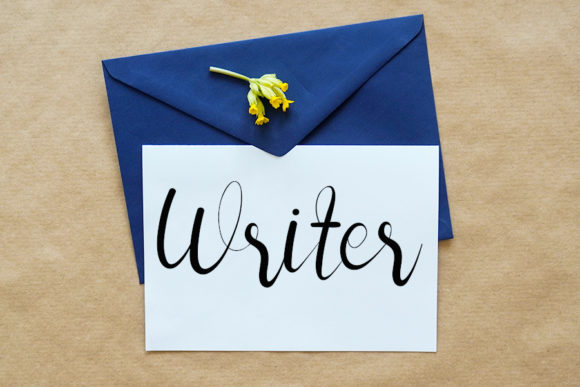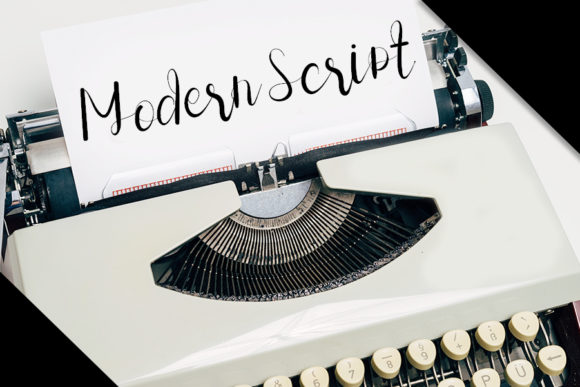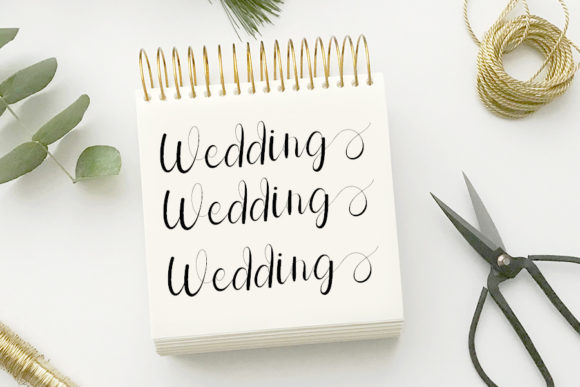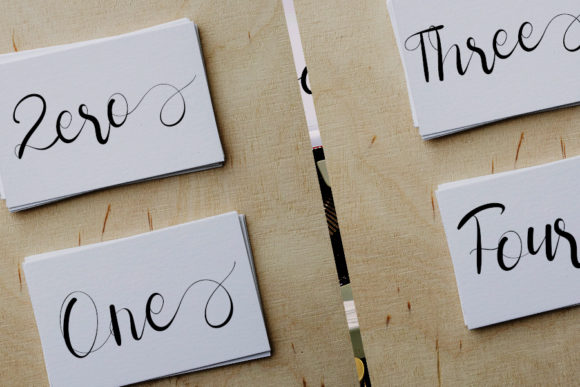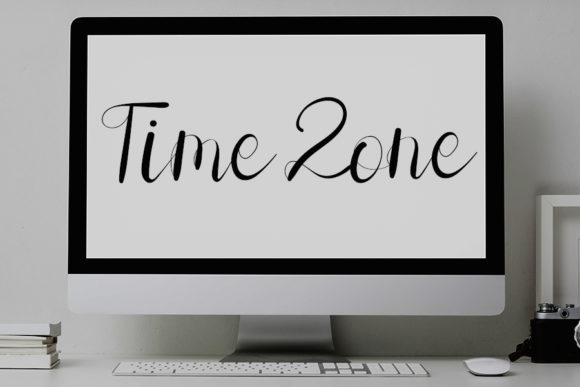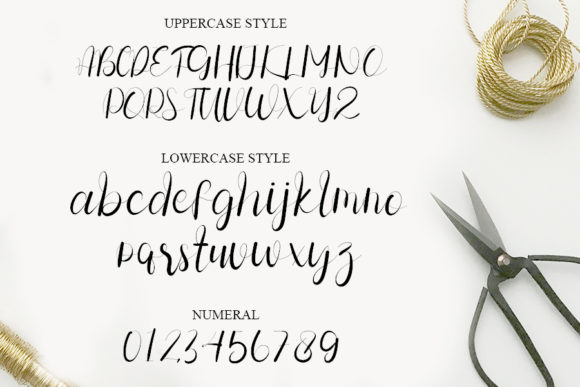
Ghiolla Font: The Sweet and Delicate Script Font for Your Creative Projects
Are you a designer or crafter looking for a font that can add a touch of elegance and trendiness to your creative projects? Look no further than the Ghiolla font. This sweet and delicate script font is perfect for a variety of applications, from branding and product packaging to invitations, quotes, t-shirts, labels, posters, and logos.
What is Ghiolla Font?
Ghiolla is a beautifully designed script font that features elegant and trendy characters. Its delicate strokes and curves make it a versatile font that can be used for a wide range of creative projects. Whether you’re looking to create a sophisticated brand identity or a playful design, Ghiolla font is sure to impress.
Key Features of Ghiolla Font
- Elegant and Trendy Characters: Ghiolla font features beautifully designed characters that are both elegant and trendy. Its unique style makes it perfect for designers and crafters who want to create unique and eye-catching designs.
- Suitable for Various Applications: Ghiolla font is versatile and can be used for a variety of applications, including branding, product packaging, invitations, quotes, t-shirts, labels, posters, and logos.
- Easy to Read: Despite its delicate nature, Ghiolla font is easy to read, making it perfect for designs that require a lot of text.
- High-Quality Design: Ghiolla font is designed with high-quality graphics, ensuring that it looks great in any design.
Uses of Ghiolla Font
Ghiolla font is a versatile font that can be used for a wide range of creative projects. Here are some of the most popular uses of Ghiolla font:
- Branding: Ghiolla font is perfect for creating a sophisticated brand identity. Its elegant and trendy characters make it ideal for logos, business cards, and other branding materials.
- Product Packaging: Ghiolla font can be used to create eye-catching product packaging that stands out on store shelves.
- Invitations: Ghiolla font is perfect for creating beautiful and elegant invitations for weddings, parties, and other special events.
- Quotes: Ghiolla font can be used to create inspiring and motivational quotes that can be shared on social media or used in designs.
- T-Shirts: Ghiolla font is a popular choice for t-shirt designs. Its delicate nature makes it perfect for creating subtle yet stylish designs.
- Labels: Ghiolla font can be used to create custom labels for products, files, and other items.
- Posters: Ghiolla font is perfect for creating eye-catching posters for events, promotions, and other purposes.
- Logos: Ghiolla font can be used to create unique and elegant logos for businesses, organizations, and individuals.
Tips for Using Ghiolla Font
Here are some tips for using Ghiolla font in your designs:
- Pair it with Other Fonts: Ghiolla font can be paired with other fonts to create a unique and eye-catching design.
- Use it for Headings: Ghiolla font is perfect for headings and titles. Its elegant nature makes it ideal for creating visually appealing designs.
- Experiment with Colors: Ghiolla font can be used with a variety of colors to create different effects.
- Keep it Simple: Ghiolla font is delicate, so it’s best to keep your design simple and clean to avoid overwhelming the font.
Ghiolla font is a beautiful and versatile script font that is perfect for designers and crafters who want to create elegant and trendy designs. Its delicate nature makes it suitable for a wide range of creative projects, from branding and product packaging to invitations, quotes, t-shirts, labels, posters, and logos. With its elegant and trendy characters, Ghiolla font is sure to impress.